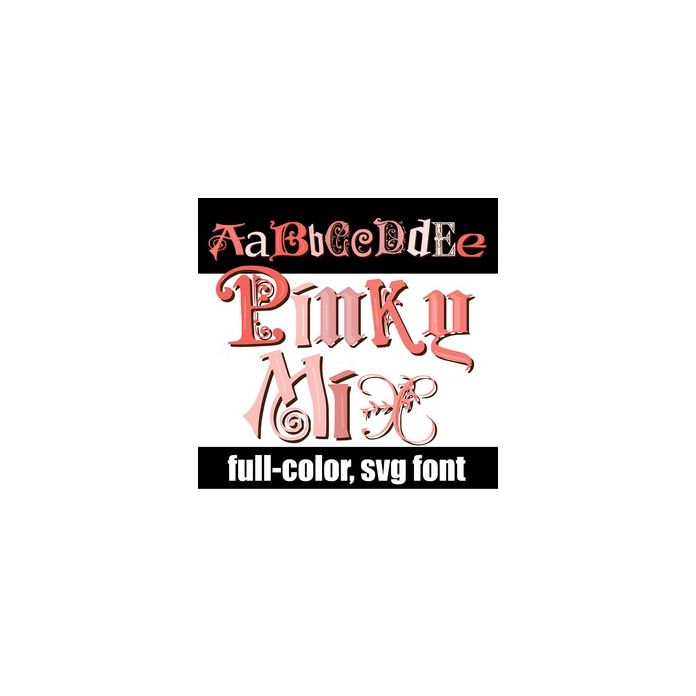
This full-color font features a mix of font styles in nude pinks. There is an alt case w/ additional colors you can access through your system or Silhouette's glyph map.